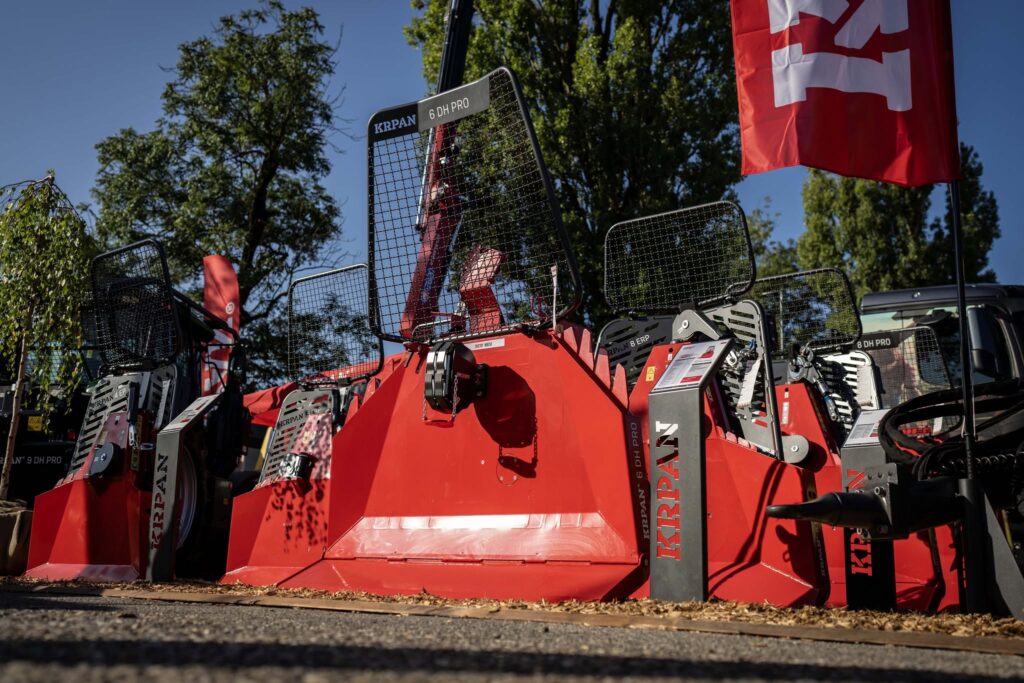
Vitli Krpan is a Slovenian manufacturer specializing in forestry machinery and equipment, known for producing high-quality winches, splitters, and other products for professional and private users.
We prepared a redesign of the logotype. Since the logo is frequently applied directly to the products, where it is cut out of steel, the stencil version is particularly important. The previous logo translated poorly into a stencil version, which became the main focus of our redesign process. Below, you can see the development of the logo and examples of its application.